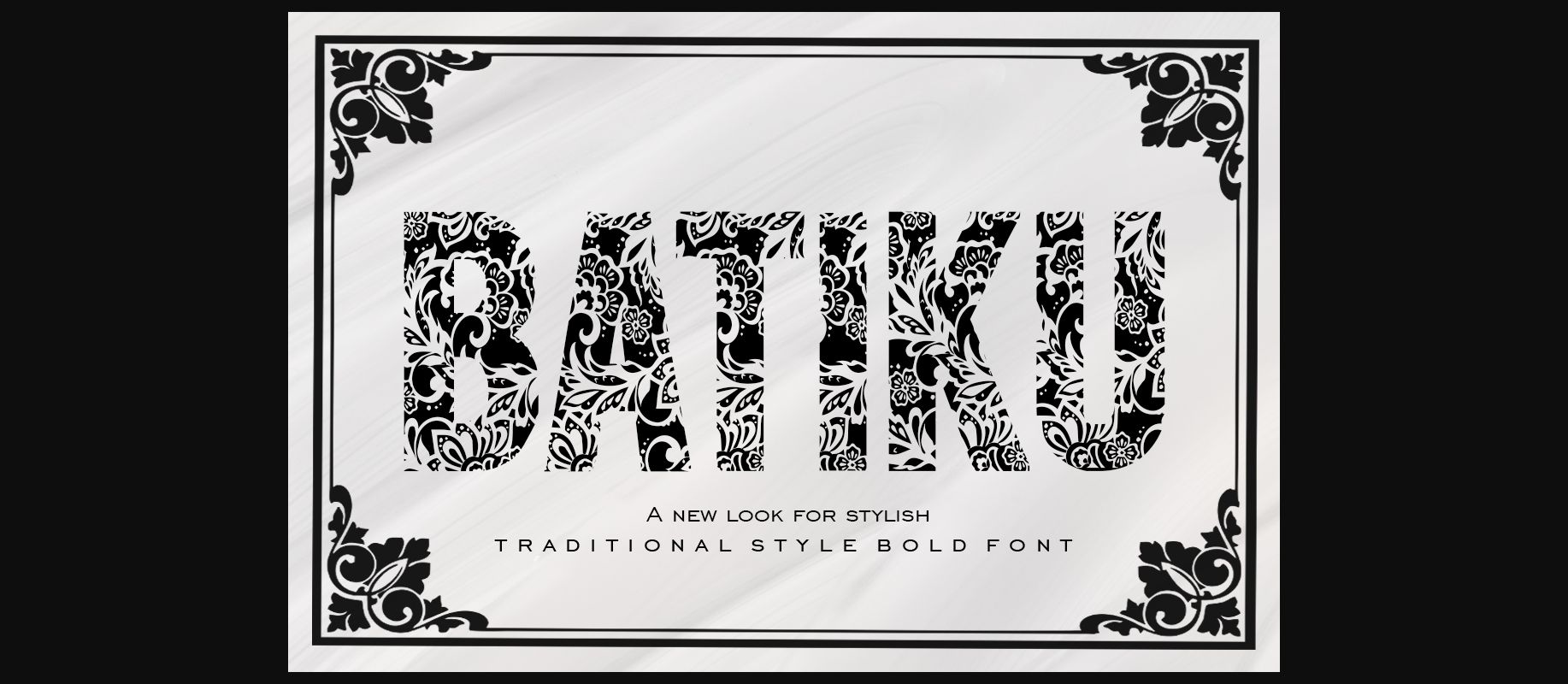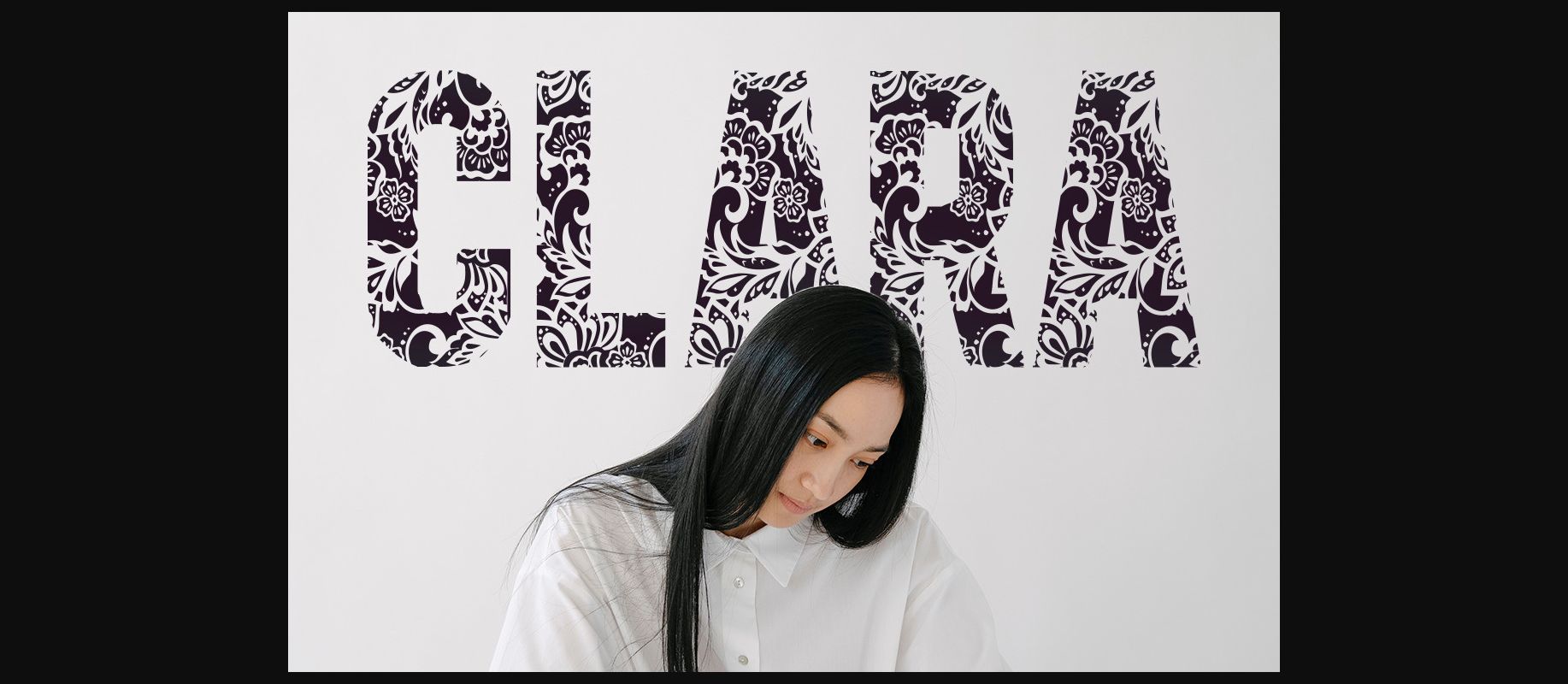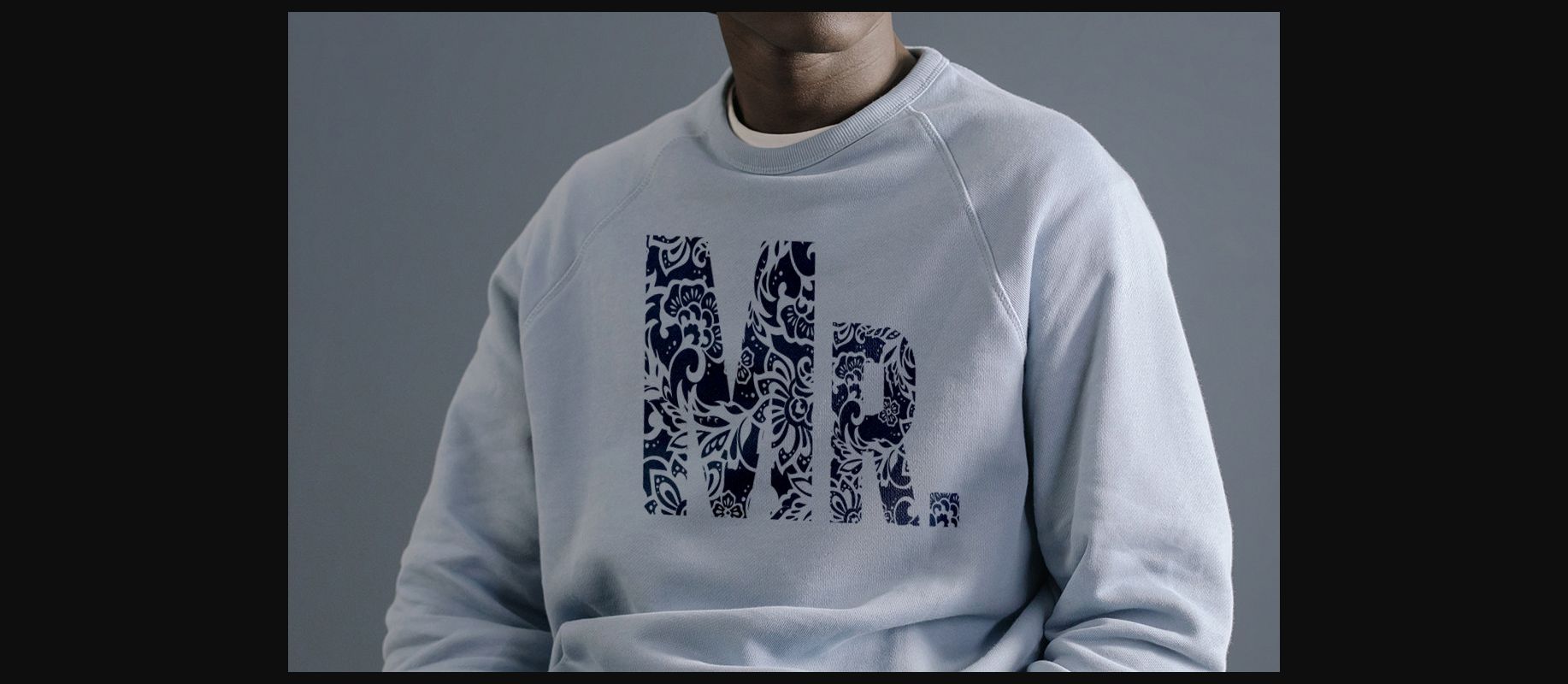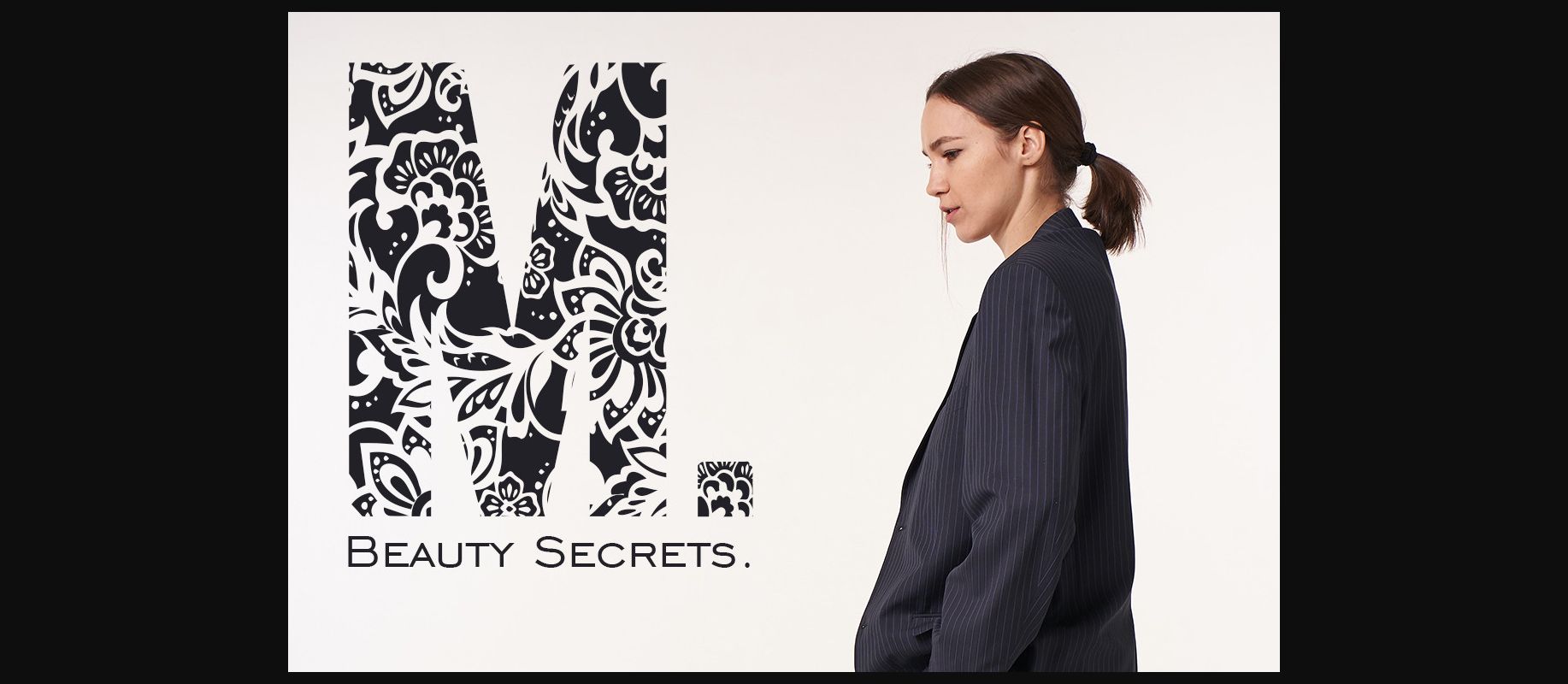
Batiku Font
About Batiku Font
Batiku is a captivating decorative font inspired by the stunning traditional batik style, perfect for a wide pool of creative projects such as company names, anniversaries, wedding invitations, t-shirts, and any design that needs a beautiful and distinctive touch!